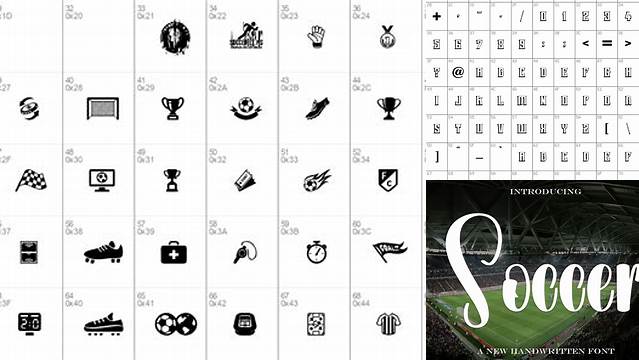
Soccer Regular OTF Font: Free Download Guide
1. Understanding the Soccer Regular OTF Font
Alright, guys, let's dive into what makes the Soccer Regular OTF font so special. This font is designed with a sporty, dynamic feel, making it perfect for anything related to soccer or sports in general. Whether you're creating a logo for a soccer team, designing posters for a tournament, or just want to add a bit of athletic flair to your project, this font is a solid choice. The OTF (OpenType Font) format means it's compatible with most design software and offers excellent scalability without losing quality. Think of it as the MVP of fonts for sports-themed designs!
When you're working with the Soccer Regular OTF font, consider how its bold and energetic style can enhance your project. For instance, using it for headlines or titles can immediately grab attention. You can also pair it with simpler, more neutral fonts for body text to balance the overall look. Experiment with different colors and sizes to see what works best for your specific needs. Remember, the goal is to create a visual that's both appealing and effective, and this font can be a great tool in achieving that.